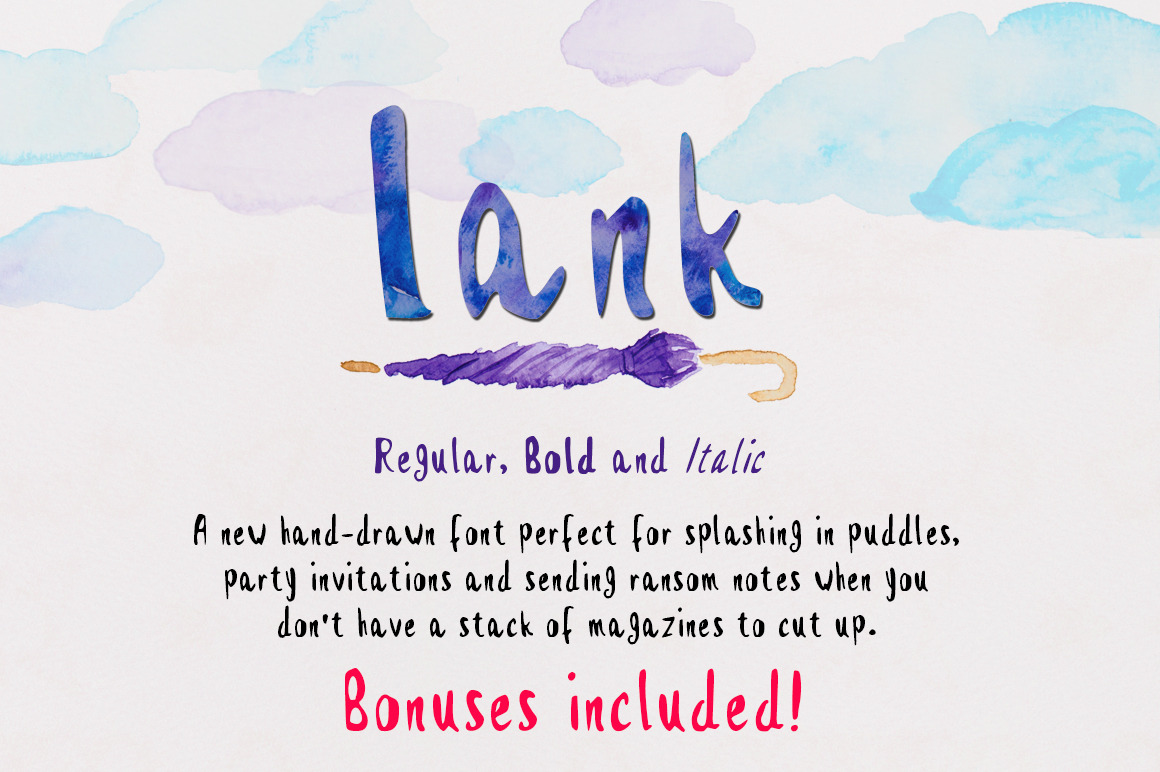
Lank Hand Lettered Font Reg/Bold/It
Lank is a hand lettered font with playfully random letter heights and three style options. It works equally well for a fun casual look or a creatively stylised professional feel.
This versatile font suits a wide range of projects from party invitations to business branding.
Ideal for:
Party invitations and event design
Business cards and branding
Blog and website headings
Craft tutorial and maker branding
Social media quote graphics
Print projects and packaging